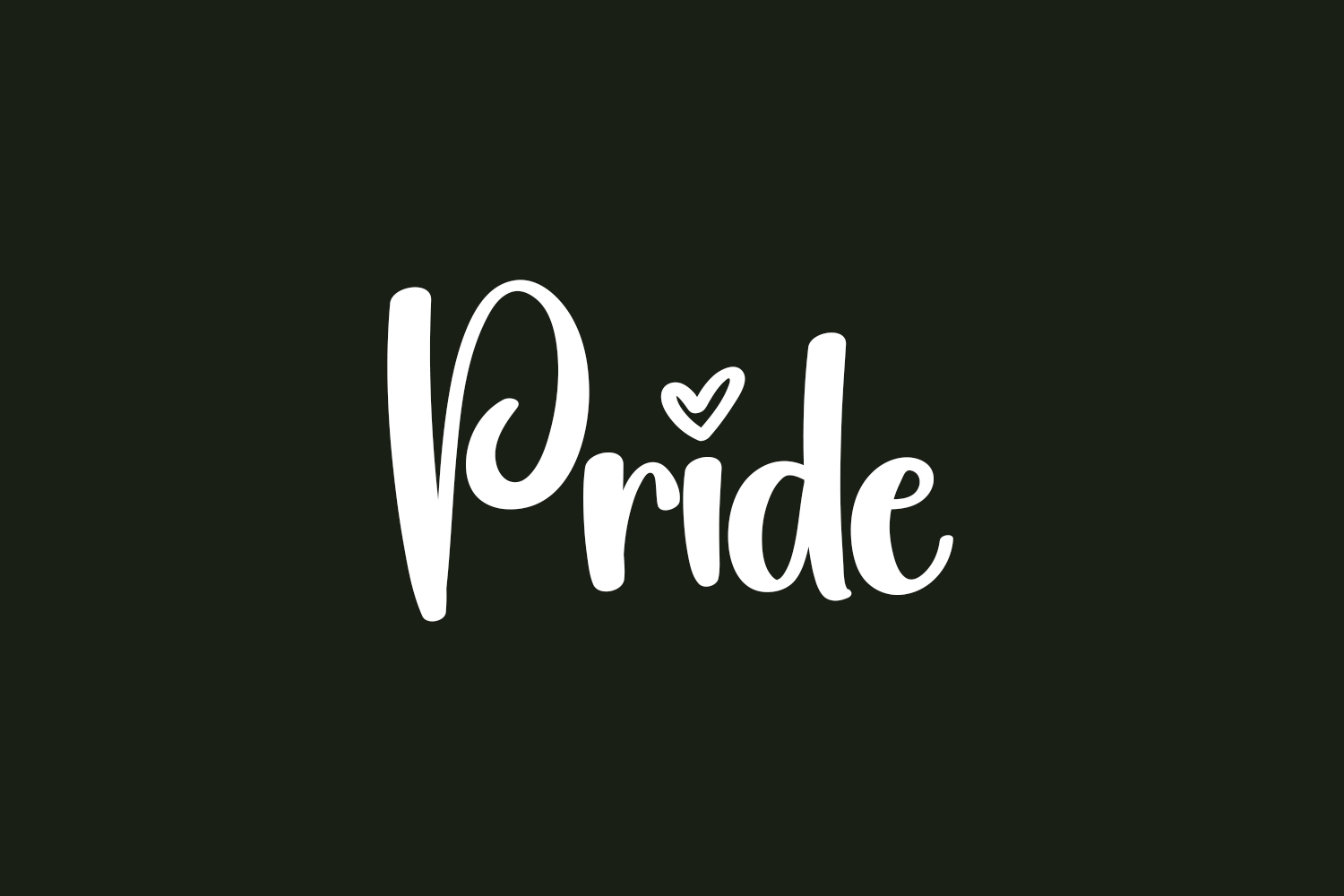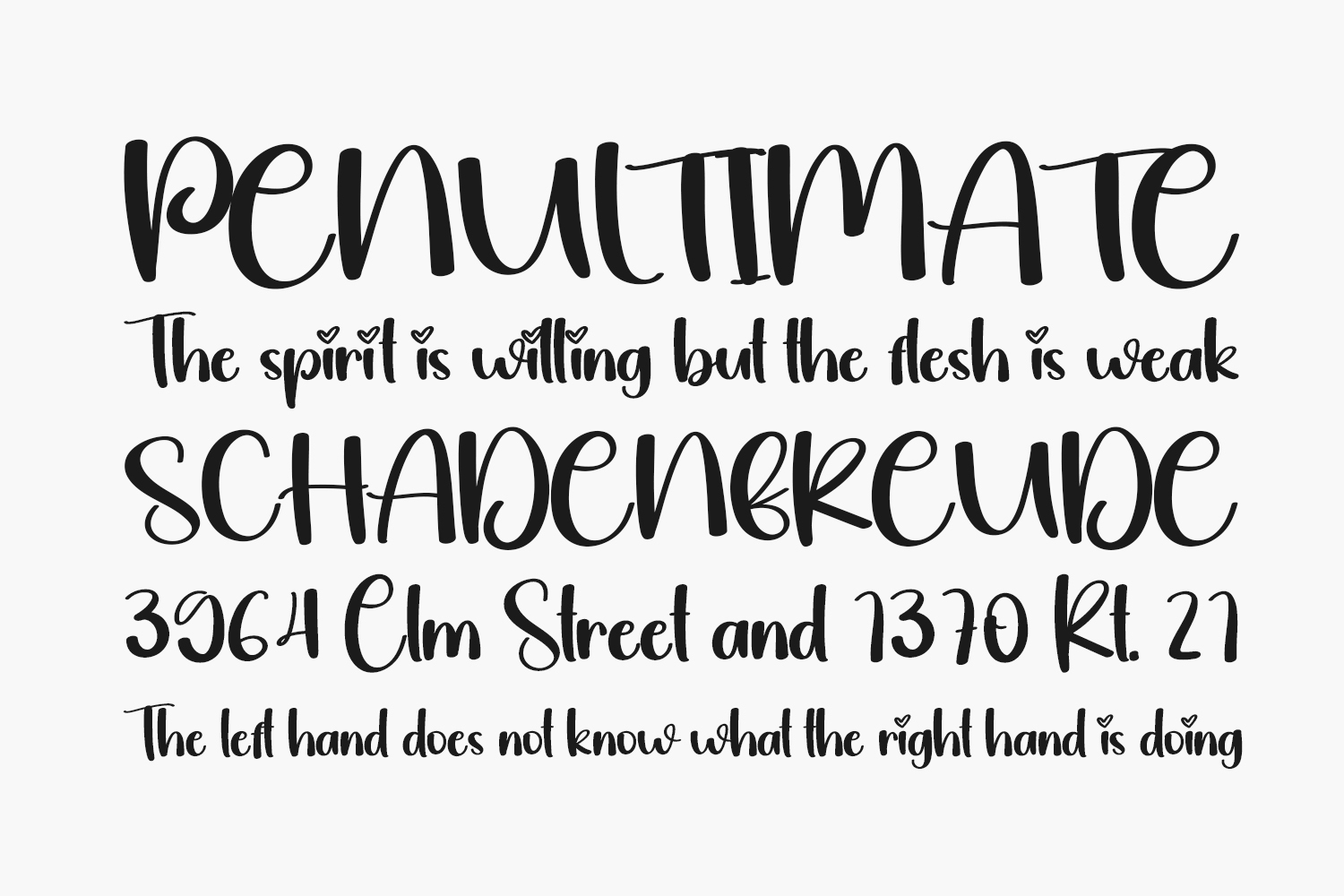
Introducing Pride Free Font, an exquisitely elegant and delicately crafted handwritten font adorned with charming swashes. Elevating romance to new heights, this unique typeface even features hearts as dots, adding a touch of sweetness to characters like “i” and “j”. Immerse yourself in the beauty of Pride and bring a tender touch to your designs today. Pride Free Font is free for personal use only. Please purchase the full version for commercial use.
Designed by Scratchones